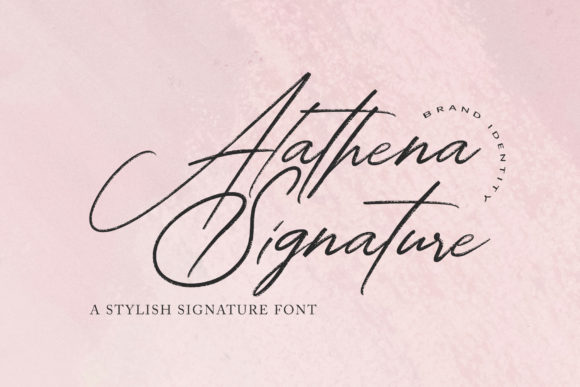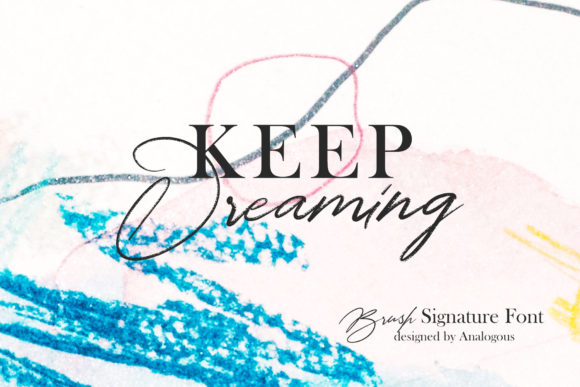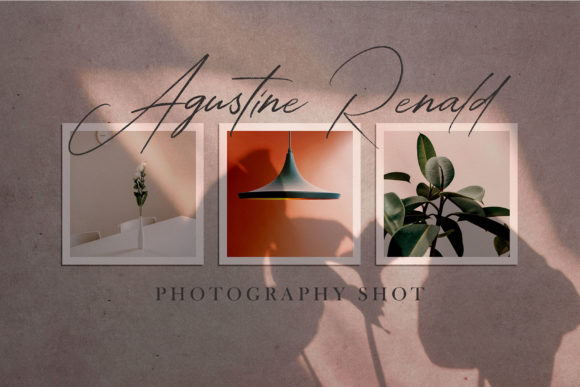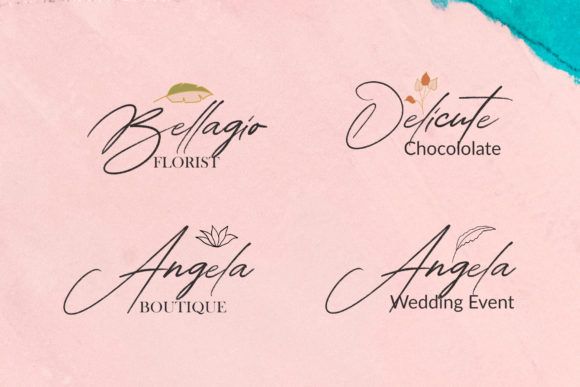
Alathena Signature Font
About the Alathena Signature Font
Elevate your designs with Alathena Signature Font, a font that combines sophistication with readability. Alathena Signature results out of a stunning pairing of a brush pen and pencil that makes it look incredibly endearing and authentic. Use this gorgeous and unique handwritten font to bring any DIY project to life!
Alathena Signature’s handcrafted charm makes it ideal for projects requiring a personal touch, such as wedding invitations, handwritten-style logos, or short quotes on social media. Its expressive nature also lends itself well to packaging for artisanal products or boutique brands. However, its brush script style is less suitable for body text or UI elements; the varying stroke weights would hinder readability in longer passages.
For optimal visual balance, pair Alathena Signature with a clean sans-serif like Lato for body copy or a geometric sans-serif like Montserrat for a modern contrast. A subtle serif like Playfair Display could also work well, offering a touch of classic elegance to complement its informal character.
Alathena Signature projects a friendly, authentic, and slightly whimsical personality. It’s best suited for brands that value handcrafted aesthetics and a personal connection with their audience.
Alathena Signature Font Usage Examples
Alathena Signature Font Example